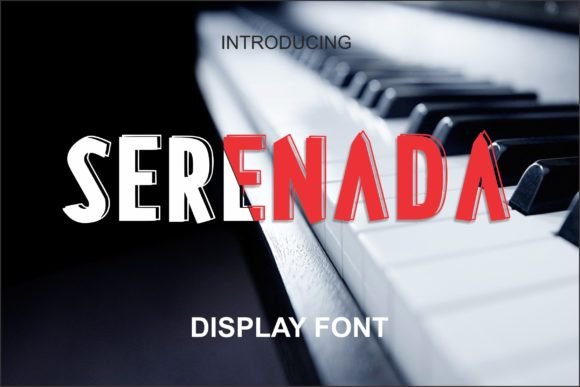
Introducing Serenada Font - The Key to Unlocking Your Creative Potential
Serenada Font is not just a font; it's a gateway to a world of boundless creativity. This captivating display font, meticulously crafted by Riki.studio, exudes an aura of individuality and boldness that is sure to turn heads. Its casual and easy-to-read nature makes it the perfect companion for a multitude of projects, allowing your imagination to run wild.
With Serenada Font at your disposal, the possibilities are endless. Create stunning logos that leave a lasting impression, captivating social media posts that demand attention, or eye-catching website designs that invite exploration. Unleash your inner designer and let Serenada Font elevate your projects to new heights.
Whether you're a seasoned graphic designer or just starting your creative journey, Serenada Font is the perfect choice for you. Its user-friendly design makes it accessible to all, while its versatility ensures that it can adapt to any project you throw its way.
Don't settle for ordinary fonts that blend into the background. Embrace the power of Serenada Font and watch as your designs transform into works of art. Its unique and bold character will captivate your audience, leaving them in awe of your creativity.